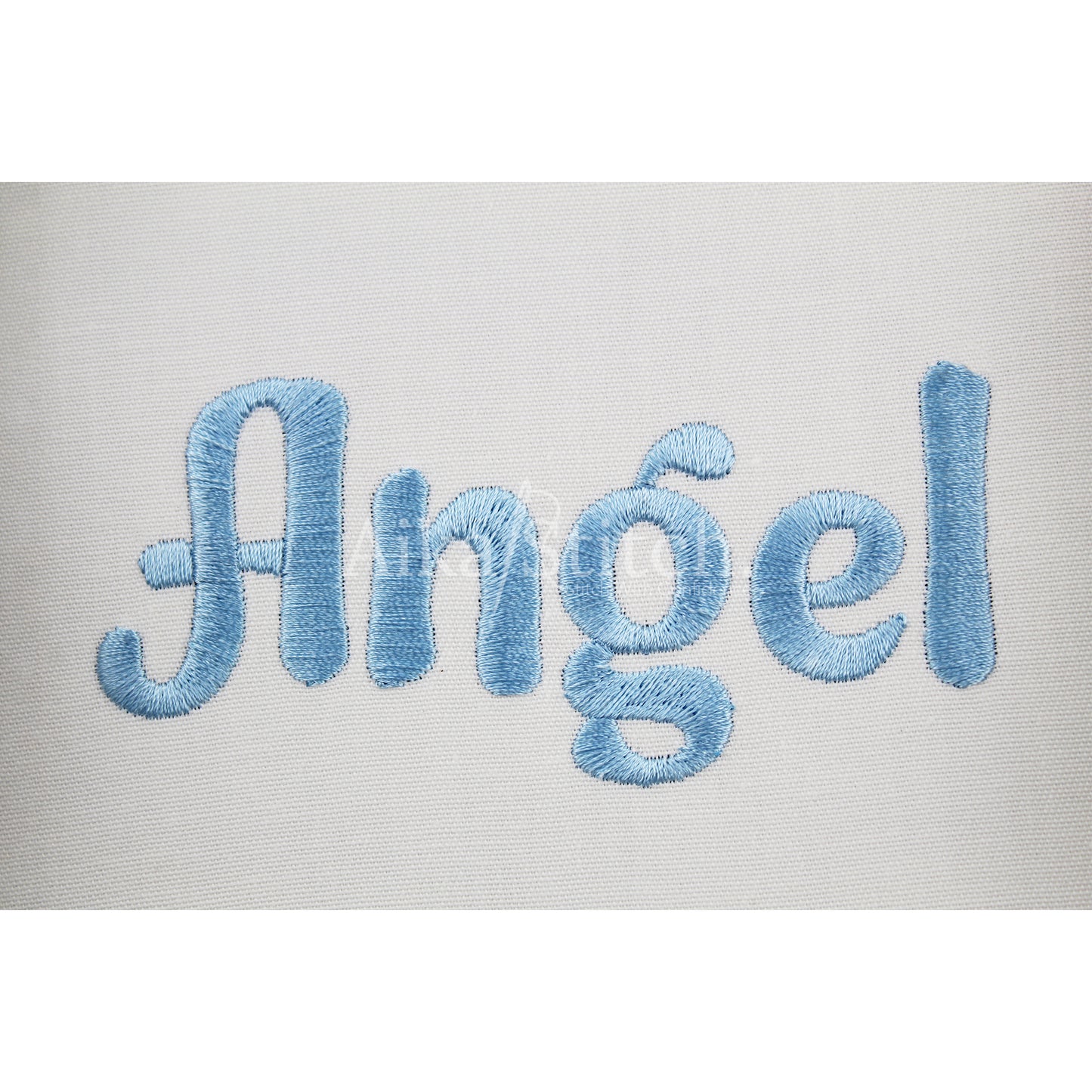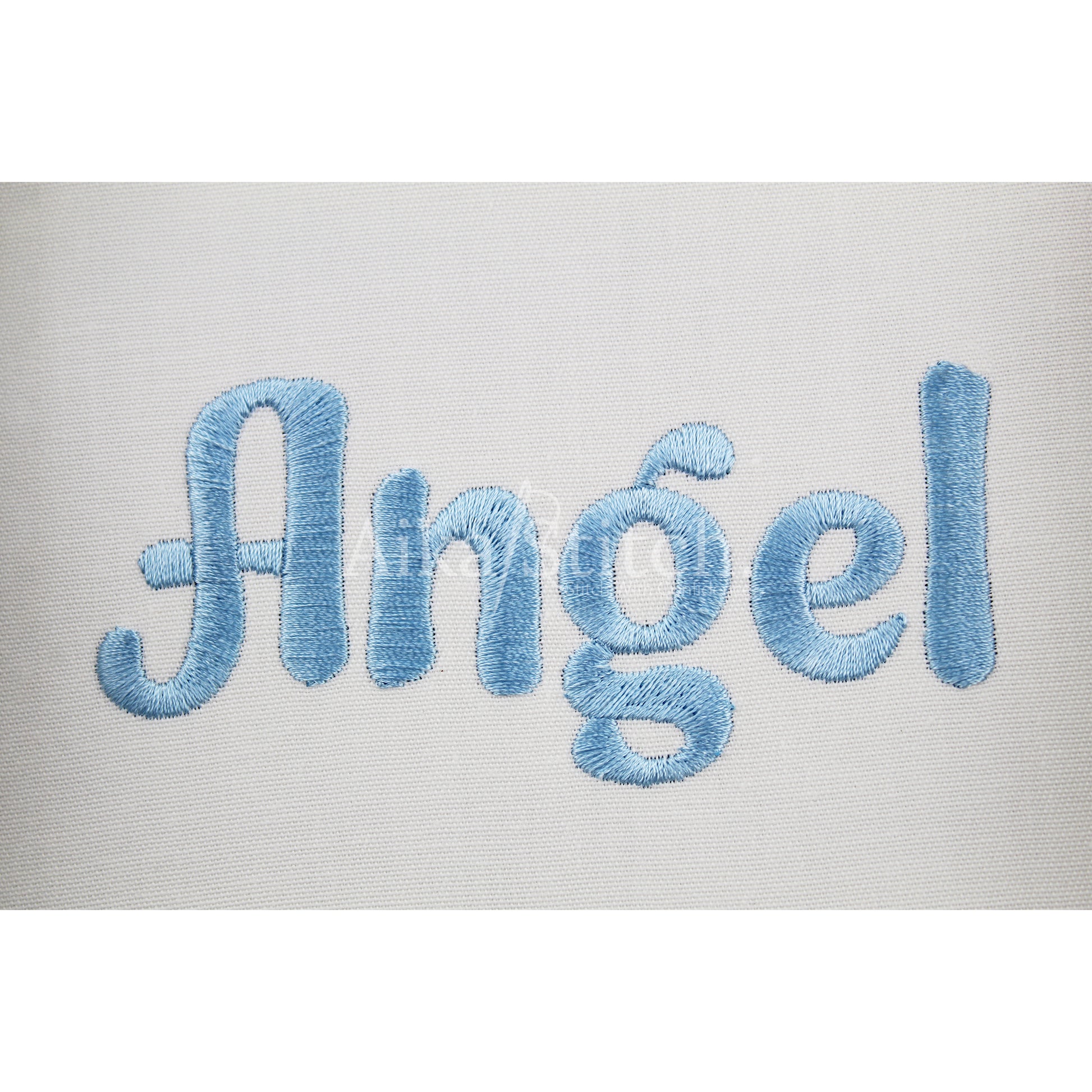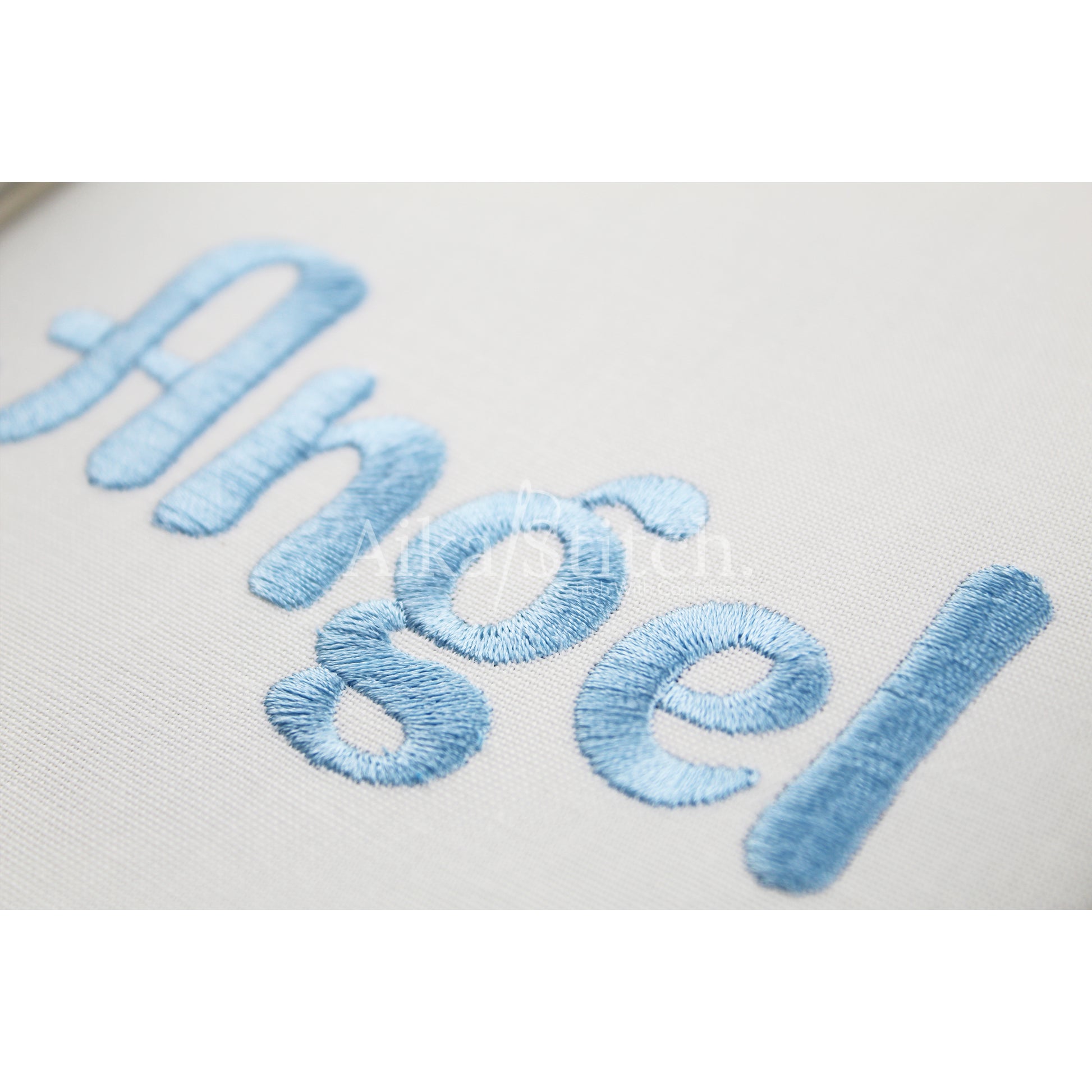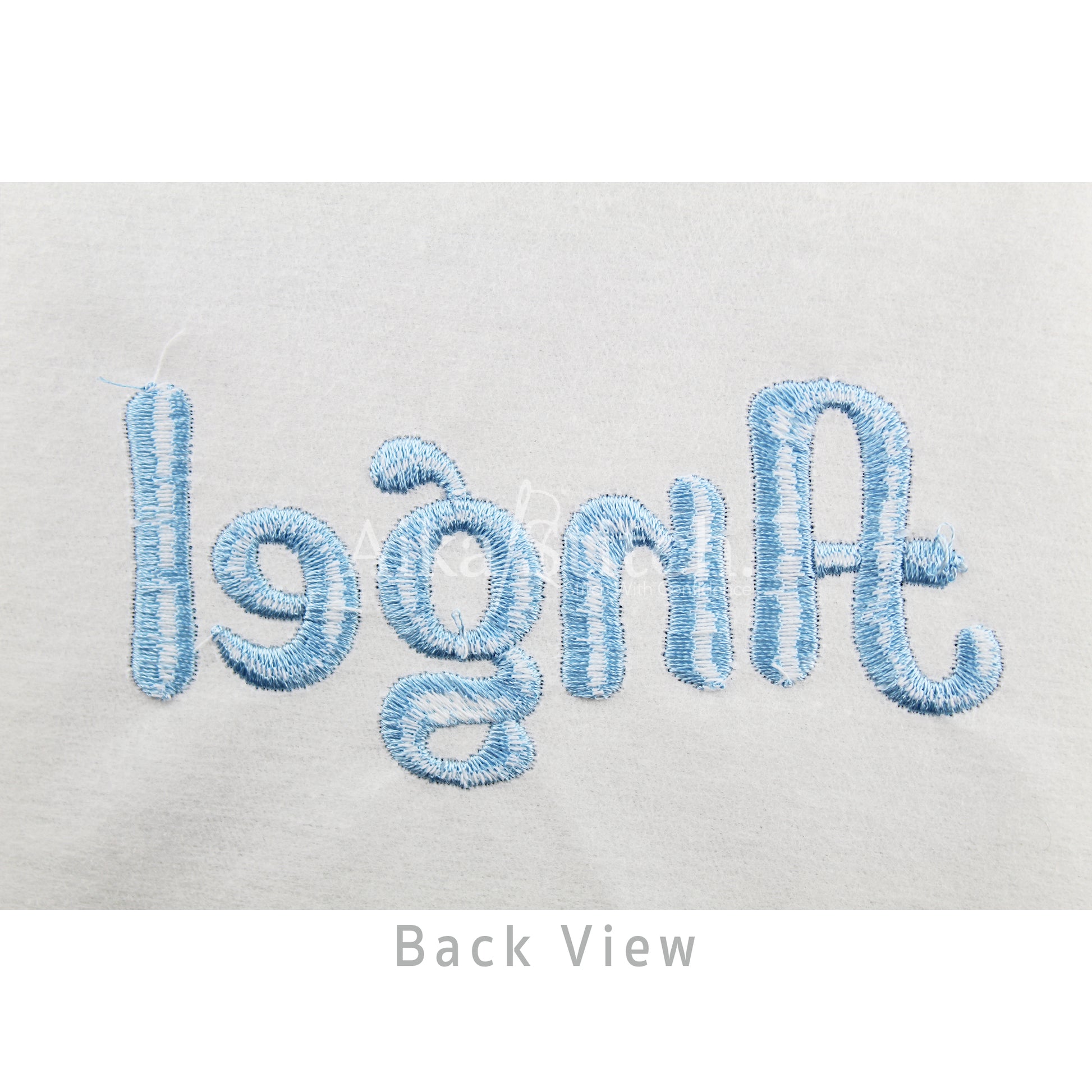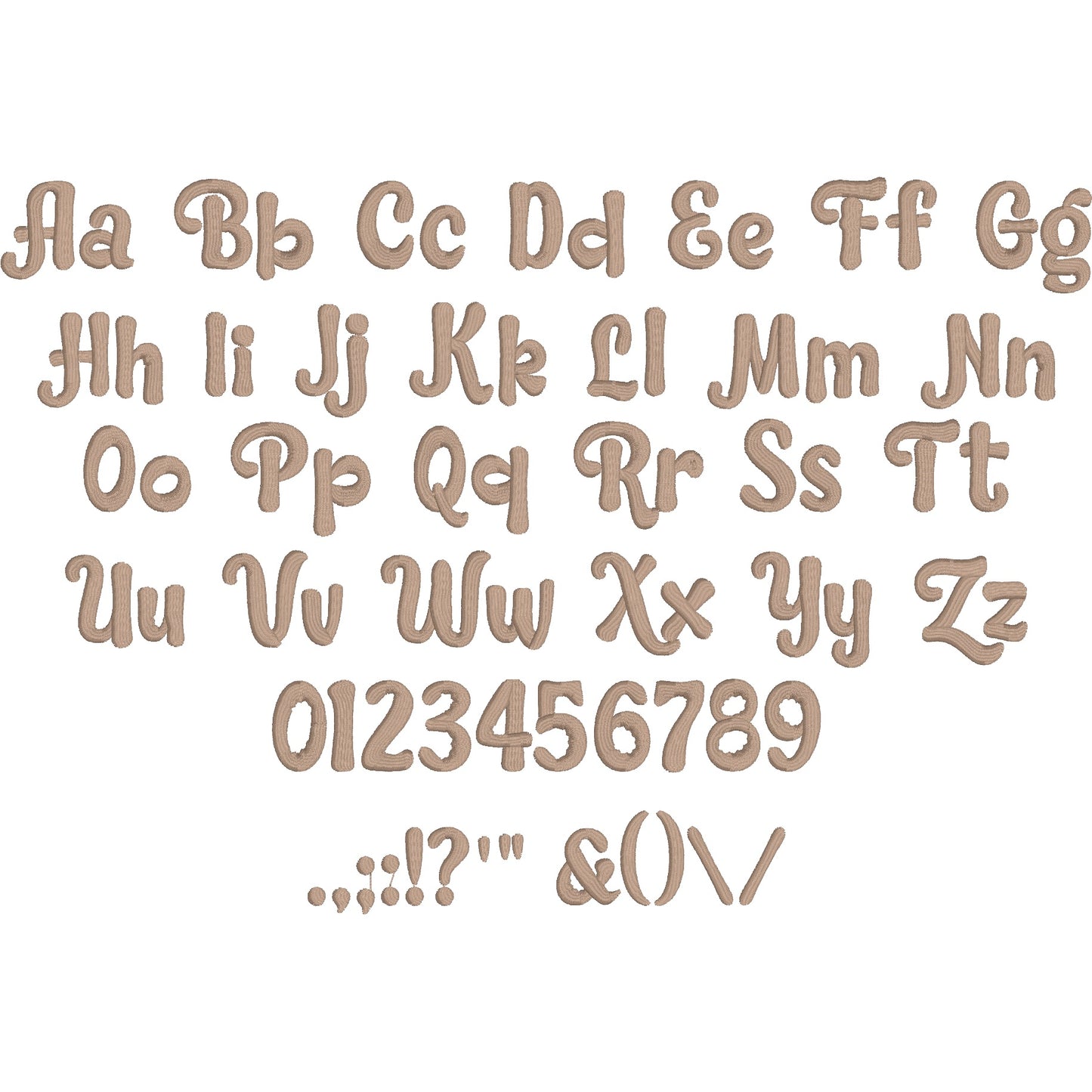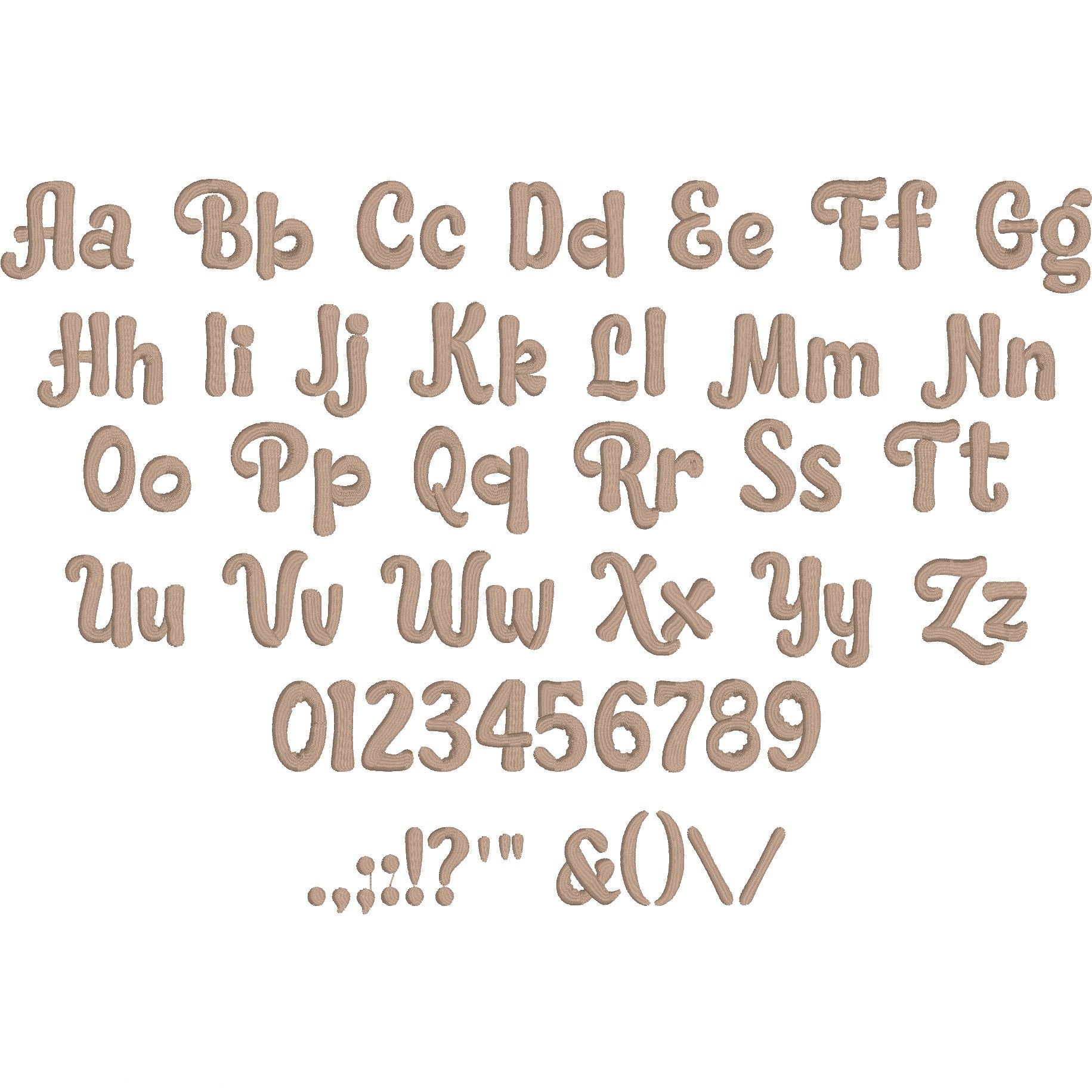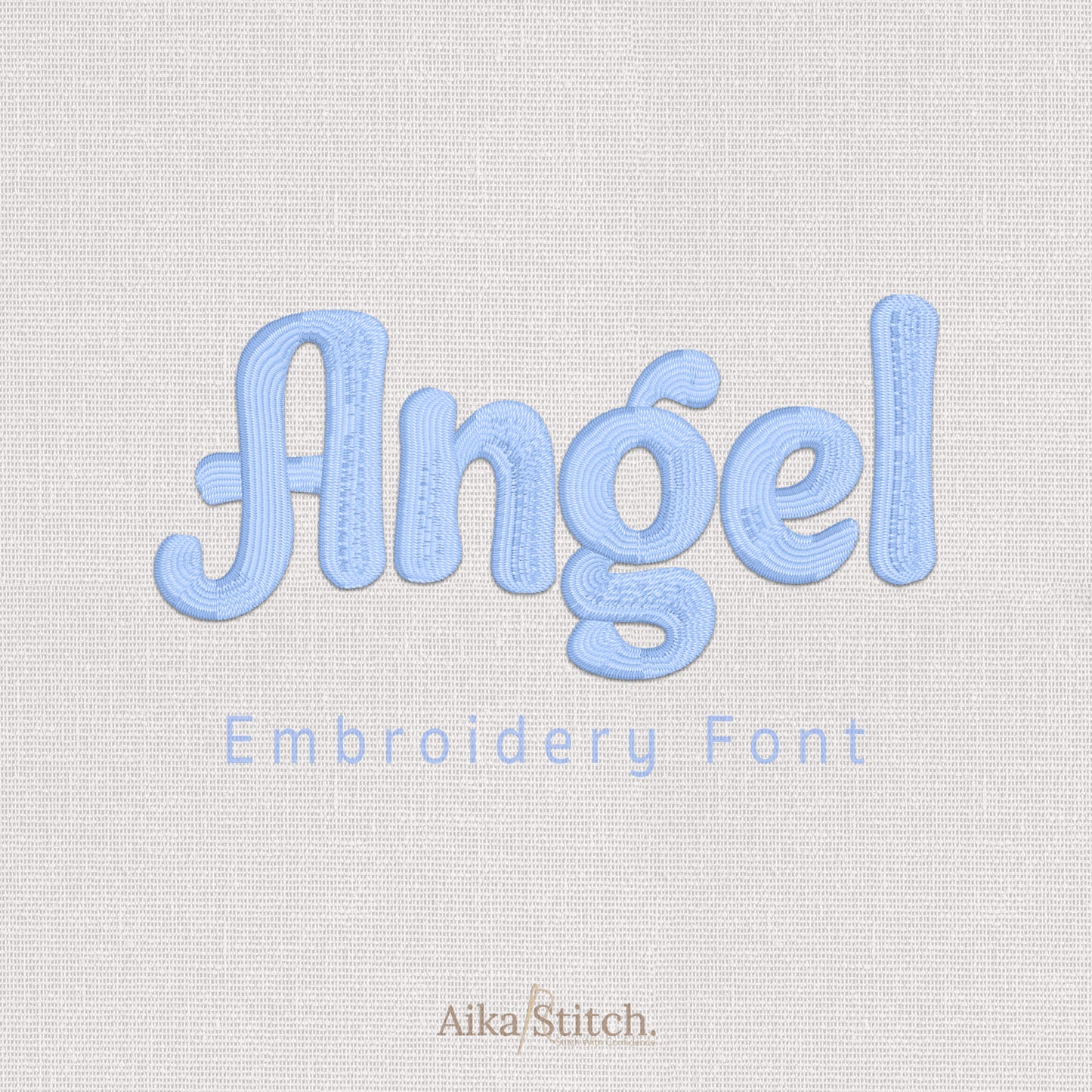
Angel Bold Elegant Embroidery Font
Angel is a Bold Elegant machine embroidery font featuring beautiful satin stitch lettering. Perfect for shirts, towels, hats, baby gifts, monograms, and small business embroidery projects.